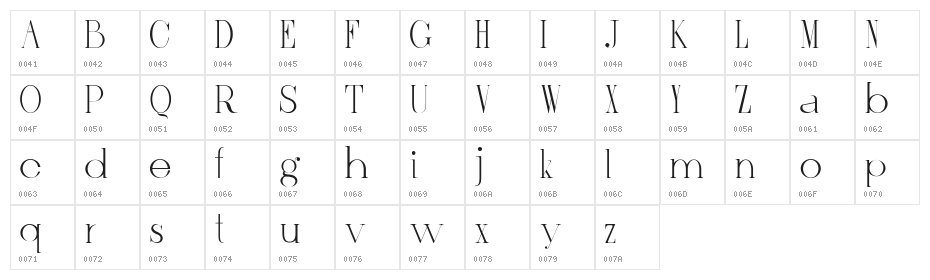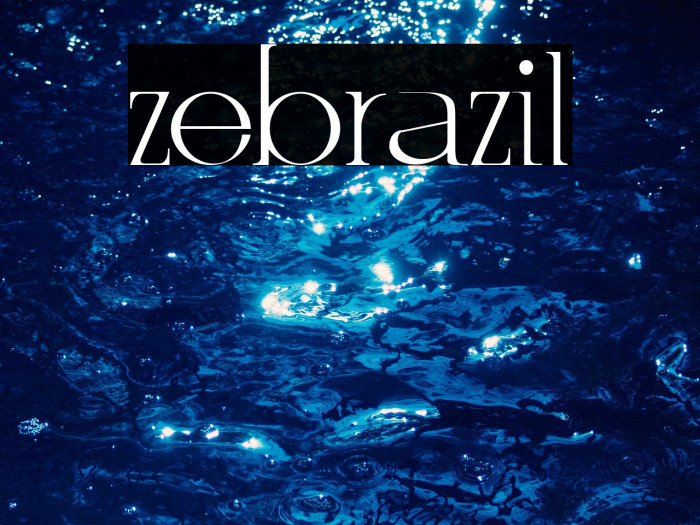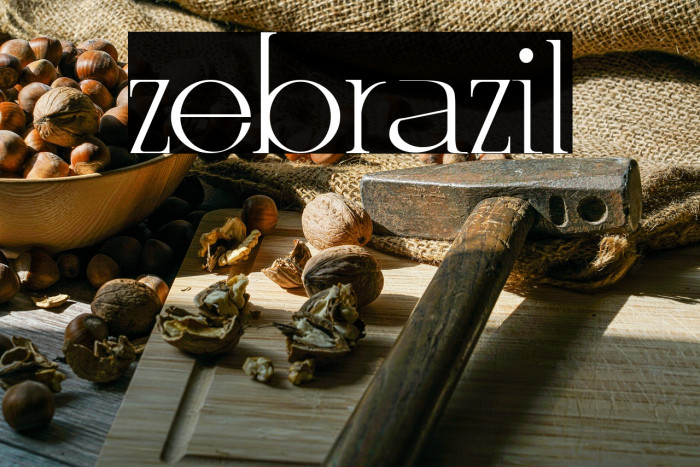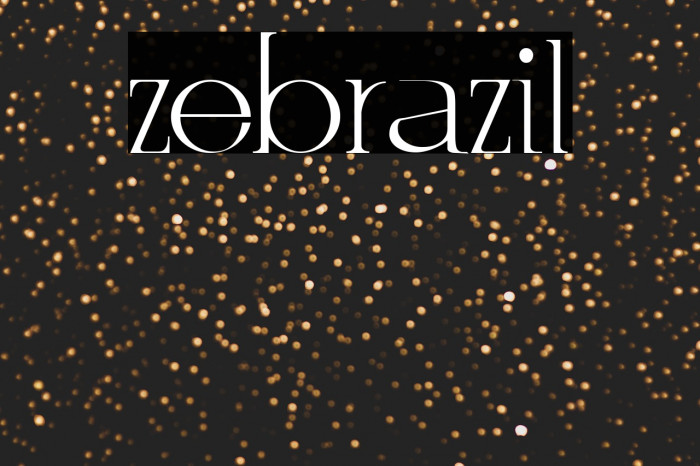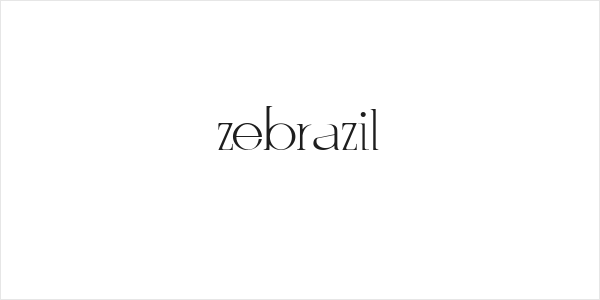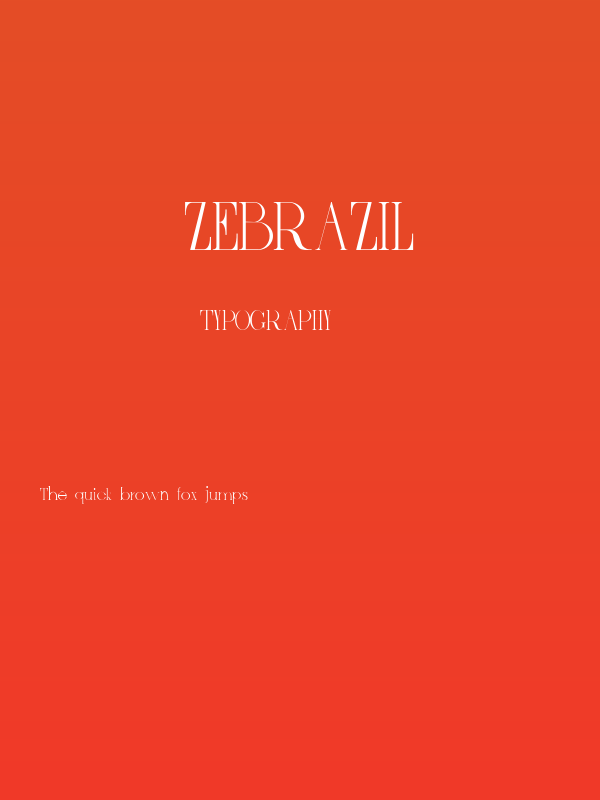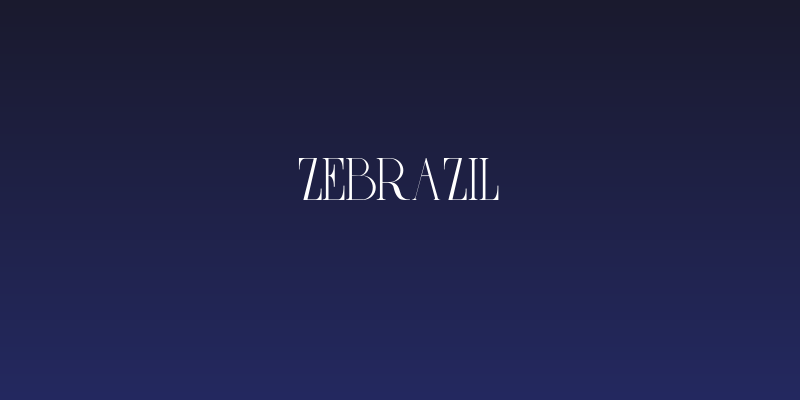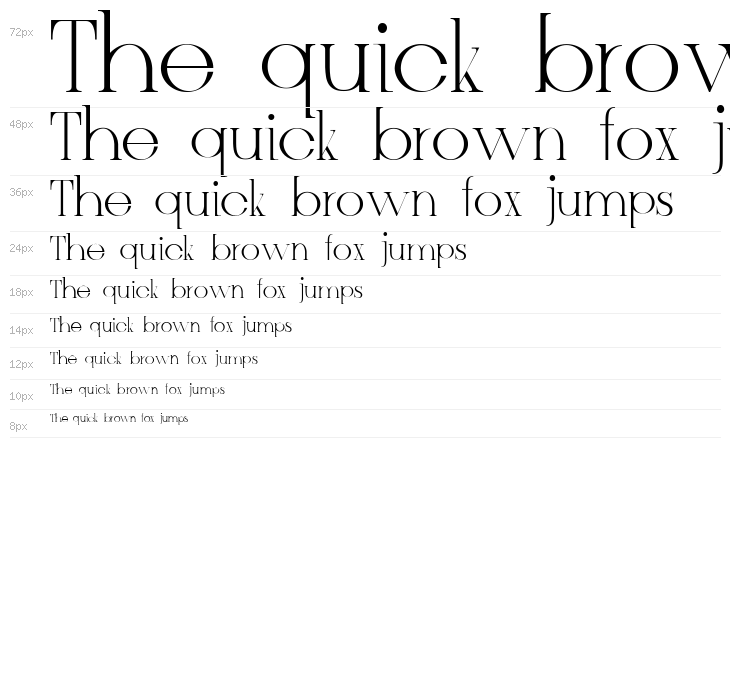
zebrazil Font
zebrazil Description
This font features a modern and elegant design with high contrast between thick and thin strokes, giving it a sophisticated appearance. The serifs are sharp and pronounced, adding a touch of classic elegance. The uppercase letters are tall and commanding, while the lowercase letters maintain a balanced and harmonious look. The font's overall style is sleek and refined, making it suitable for upscale branding and editorial design. Its unique character shapes and stylish flair make it stand out, offering a contemporary twist on traditional serif fonts.
Use CaseHeadlines, Editorial design, Branding
Proposed ProjectsIdeal for luxury branding, fashion magazines, high-end product packaging, and elegant invitations.